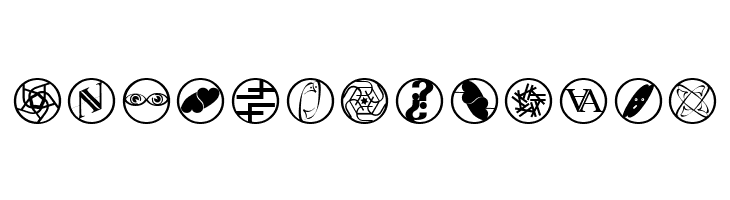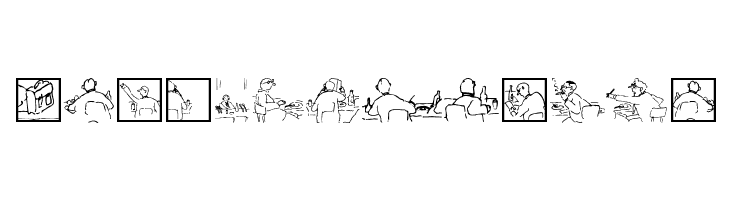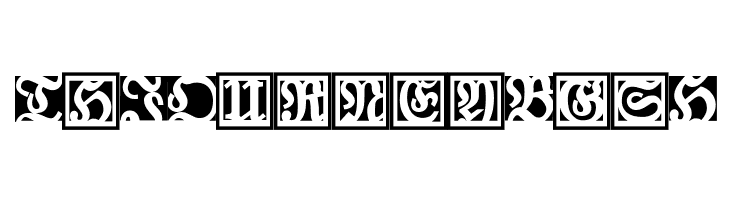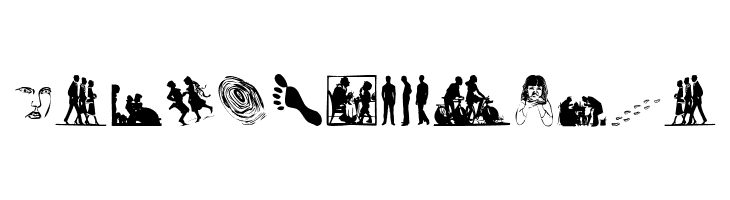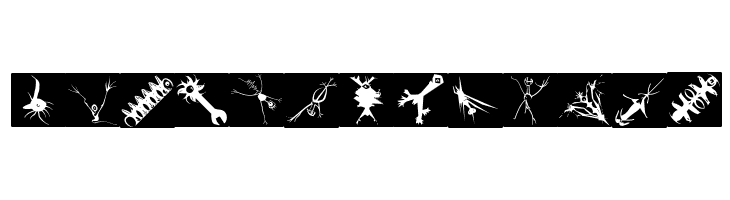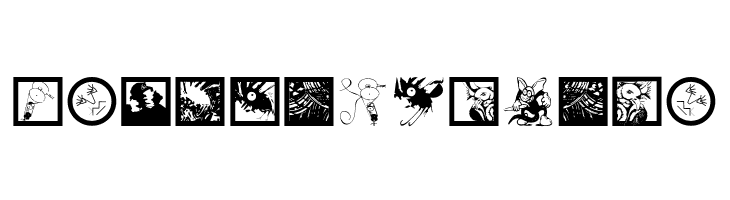
• CatSketches
Playful hand-drawn cat illustrations with varied expressions.
• VikingsArt
Ornate Viking-inspired pictorial font with detailed illustrations.
• LogosExercises
Abstract, circular, and highly decorative letterforms with unique motifs.
• Meeting
Hand-drawn, illustrative font made from meeting scene sketches.
• FraxBrix
An ornate and decorative font with high contrast and enclosed letters.
• OldScissorCuts
A decorative font featuring intricate silhouette illustrations for each character.
• NewEarthCitizensBricks
Abstract, organism-inspired dingbat font with surreal, decorative glyphs.
• AbstractToConcrete
Abstract, illustrative font with playful, hand-drawn and geometric glyphs.
• RunningZigzags
An abstract, spiky, and dynamic decorative design.
• RunningZigzagsTwo
The image does not depict a valid font.